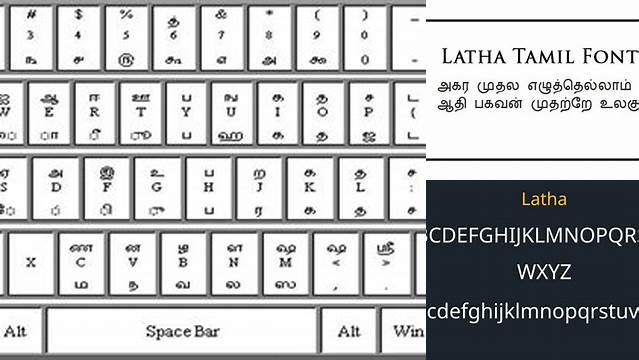
Hey guys! Ever struggled with typing in Latha font? It can be a bit tricky if you don't have the right keyboard layout. But don't worry, we've got you covered! This article will walk you through everything you need to know about Latha font keyboard layouts, including where to download them for free and how to install them. Let's dive in and make typing in Latha font a breeze!
What is Latha Font?
Before we jump into the keyboard layout, let's quickly talk about what Latha font actually is. Latha is a popular Indian language font, specifically designed for the Tamil script. It's widely used in various applications, from documents and websites to graphic design projects. If you're working with Tamil text, chances are you've come across Latha font. Knowing this is crucial as you seek the right tools to use it efficiently.
The Significance of Latha Font in Tamil Typography
Latha font holds a significant place in Tamil typography. Its clear and legible design makes it a preferred choice for many publishers and digital content creators. This font has been carefully crafted to ensure each character is easily distinguishable, reducing eye strain and improving readability. The cultural importance of Latha font in maintaining the authenticity of written Tamil cannot be overstated.
Common Uses and Applications of Latha Font
You'll find Latha font used everywhere, from printed books and newspapers to digital documents and websites. Its versatility makes it suitable for both formal and informal contexts. Whether you're drafting an official letter, designing a website, or creating graphics, Latha font can be a dependable option. Understanding these common applications helps you appreciate its broad appeal.
Latha Font: A Brief History and Development
The history of Latha font is tied to the evolution of digital typography in India. Initially designed to meet the growing demand for Tamil fonts in the digital age, Latha quickly became a standard. Its development reflects the ongoing efforts to digitize and preserve regional languages, ensuring they remain accessible and widely used in our modern world. Recognizing its history adds depth to our appreciation of its role.
Why You Need a Latha Font Keyboard Layout
Okay, so you know about Latha font, but why do you need a special keyboard layout? Well, typing in Tamil script isn't as simple as using a regular English keyboard. The Tamil script has a different set of characters and symbols, so you need a specific layout to access them. A Latha font keyboard layout remaps your keyboard keys to match these characters, making it much easier to type in Tamil. Without it, you'd be stuck trying to copy and paste characters, which is a total pain!
The Challenges of Typing in Latha Without a Proper Layout
Imagine trying to write an email in Tamil without the right keyboard layout. It would be like trying to build a house with only a hammer and no nails. You'd struggle to find the correct characters, make tons of mistakes, and probably give up in frustration. A proper layout eliminates these challenges, making typing a smooth and enjoyable experience.
How a Dedicated Layout Simplifies Tamil Typing
A dedicated Latha font keyboard layout simplifies Tamil typing by mapping each Tamil character to a specific key on your keyboard. This allows you to type fluently, without having to hunt for each character. Think of it as learning to play the piano – once you know where the keys are, you can create beautiful music. Similarly, with the right layout, you can effortlessly create beautiful Tamil text.
The Benefits of Using a Standardized Latha Keyboard
Using a standardized Latha keyboard layout offers numerous benefits. Not only does it improve your typing speed and accuracy, but it also ensures consistency across different platforms and applications. This means you can switch between your computer, tablet, and phone without having to relearn the layout each time. Plus, it makes collaborating with others much easier, as everyone is using the same system.